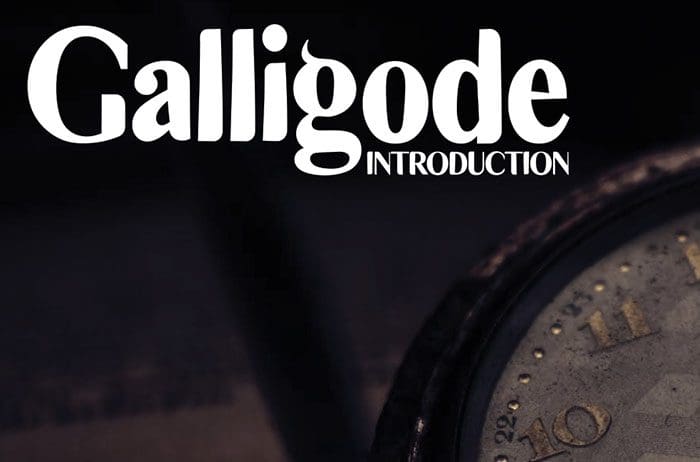
Galligode Serif Font
Free Galligode serif font, carefully handcrafted to become a true favorite. This font will look outstanding in any context, whether it’s being used on busy backgrounds or as a standalone headline! Designed this font by Andika Studio. You can also search more free Serif Fonts.